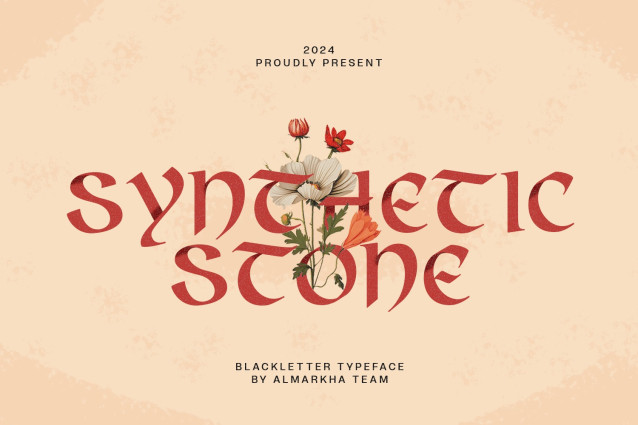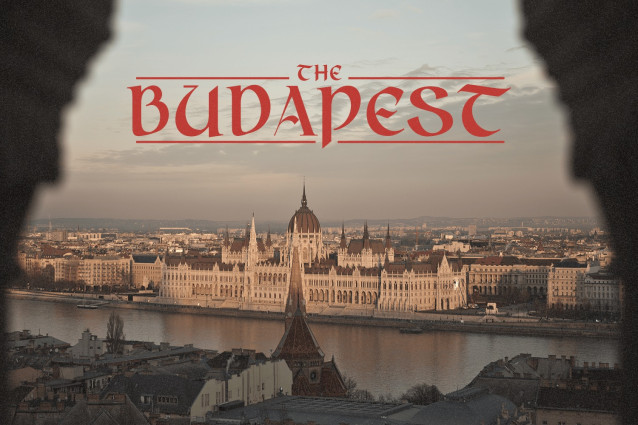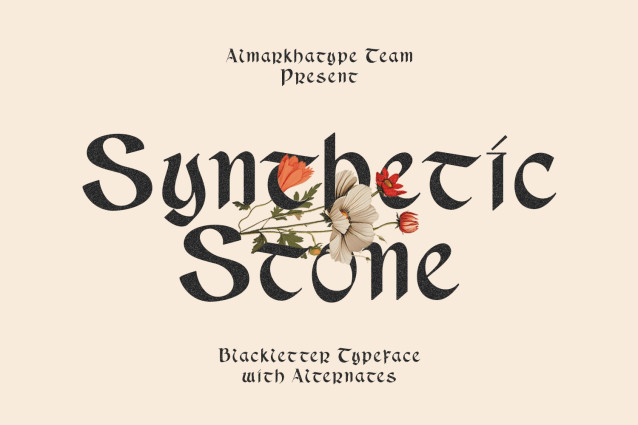
Synthetic Stone Font
Synthetic Stone Font – a beautifully crafted typeface inspired by the historic elegance of uncial script. Rooted in the rich tradition of early medieval manuscripts, Synthetic Stone captures the timeless essence of this ancient calligraphic style, bringing a touch of classic sophistication to modern design. Drawing from the rich history of uncial script, which was prominent from the 3rd to 8th centuries, Synthetic Stone reflects the artistry and craftsmanship of early scribes. This typeface pays homage to the elegance of ancient manuscripts while offering a modern twist that makes it relevant for today’s designers. Perfect for a wide range of applications, from book covers and editorial designs to logos and branding, Synthetic Stone offers a unique blend of old-world charm and modern versatility. Comprehensive set of glyphs, including both uppercase and lowercase letters, numerals, punctuation, and special characters to meet diverse typographic needs.